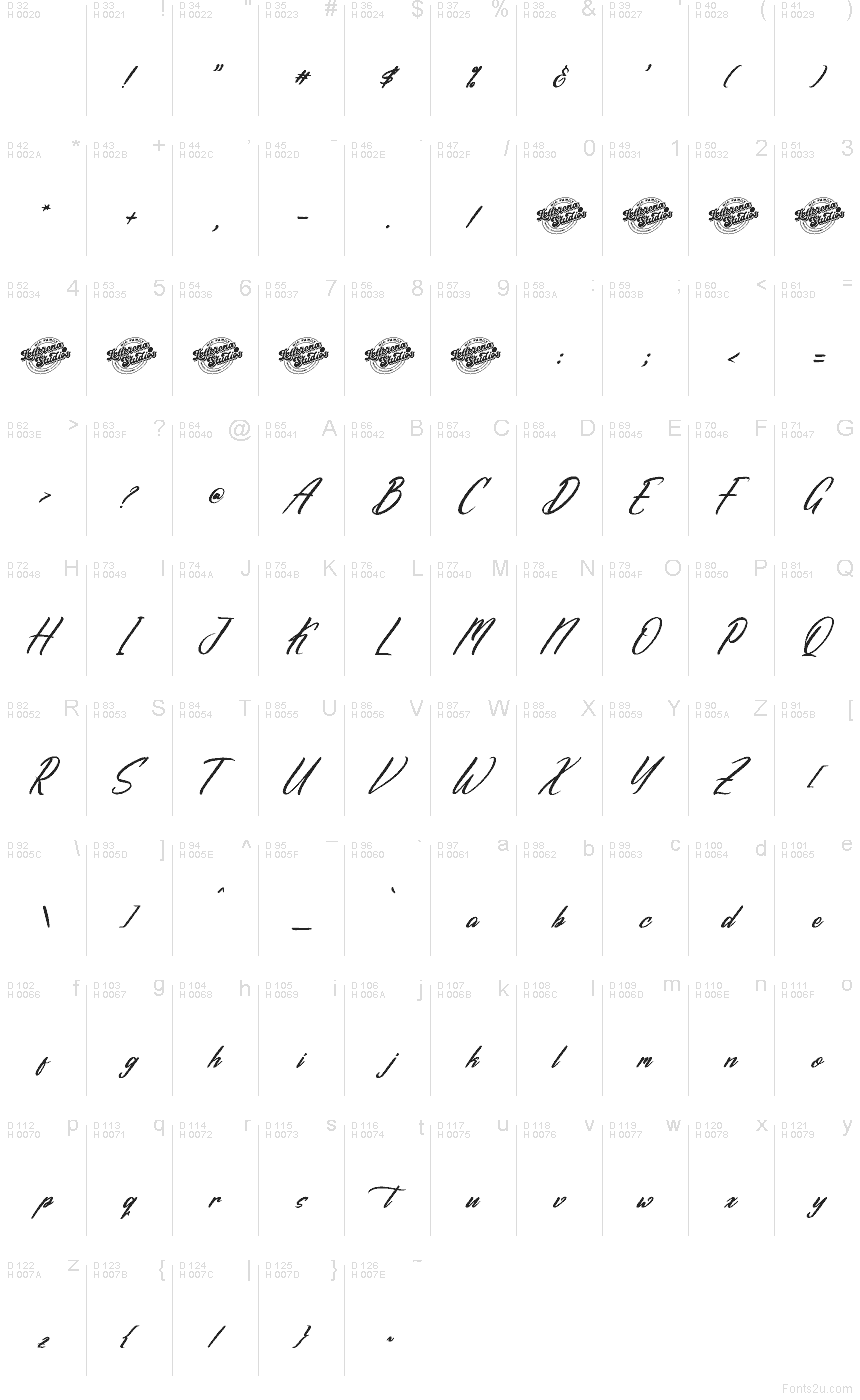
Burgundy Deception DEMO VERSION Italic
Burgundy Deception Italic font by Letterena Studios is a free handwritten script typeface with a smooth, inky flow and a distinctly romantic tilt. Its long, sweeping strokes and tight, connected rhythm feel like quick signatures on fine stationery—elegant, but not stiff. The subtle texture in the lines keeps it from looking generic or overly polished, giving your designs a believable, pen-on-paper warmth.
Using Burgundy Deception Italic, you can elevate wedding invitations, save-the-dates, feminine branding, product packaging, book covers, and social media quotes. This free font shines when set large as a hero word or logotype, then paired with a clean sans serif for supporting text to keep everything readable and balanced.